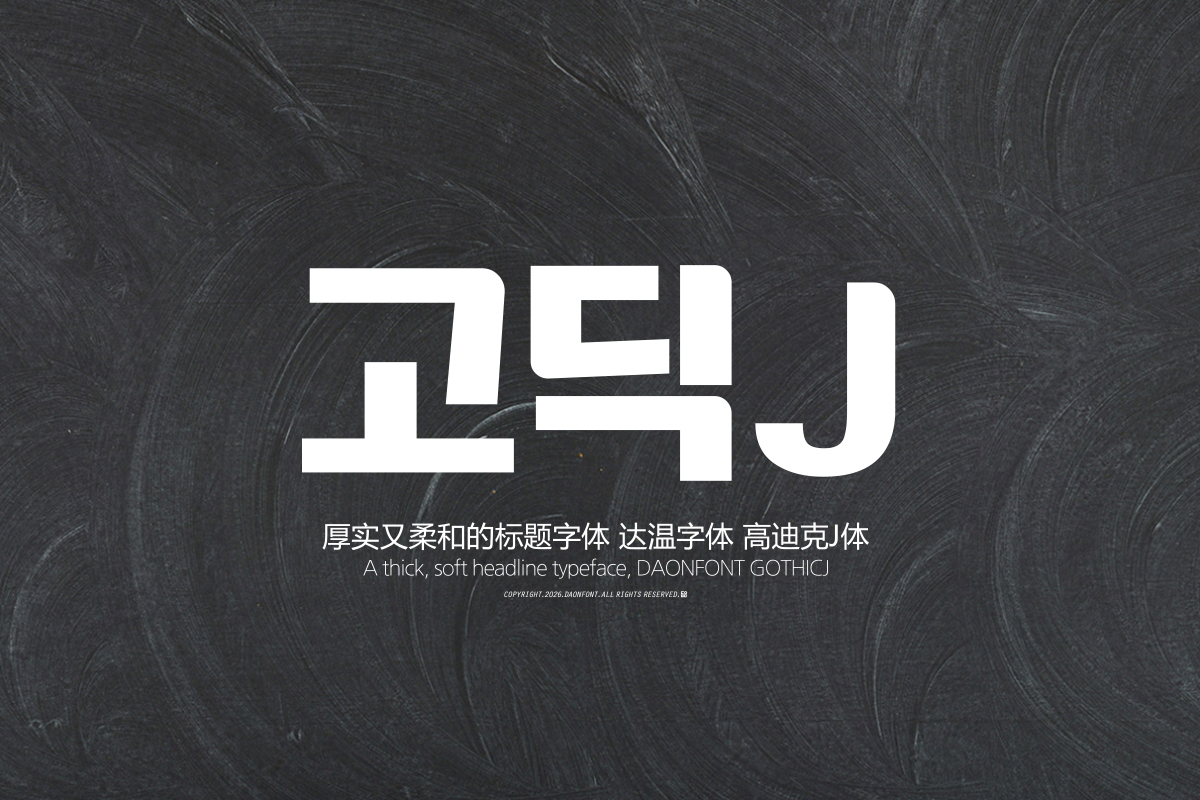
DAON GOTHIC J
'Gothic J' is a Korean Gothic typeface designed based on a balance of solid structure and concise lines. With a design that minimizes unnecessary ornamentation and clearly reveals the inherent forms of the letters, it is suitable for clear and clean typographic expression.